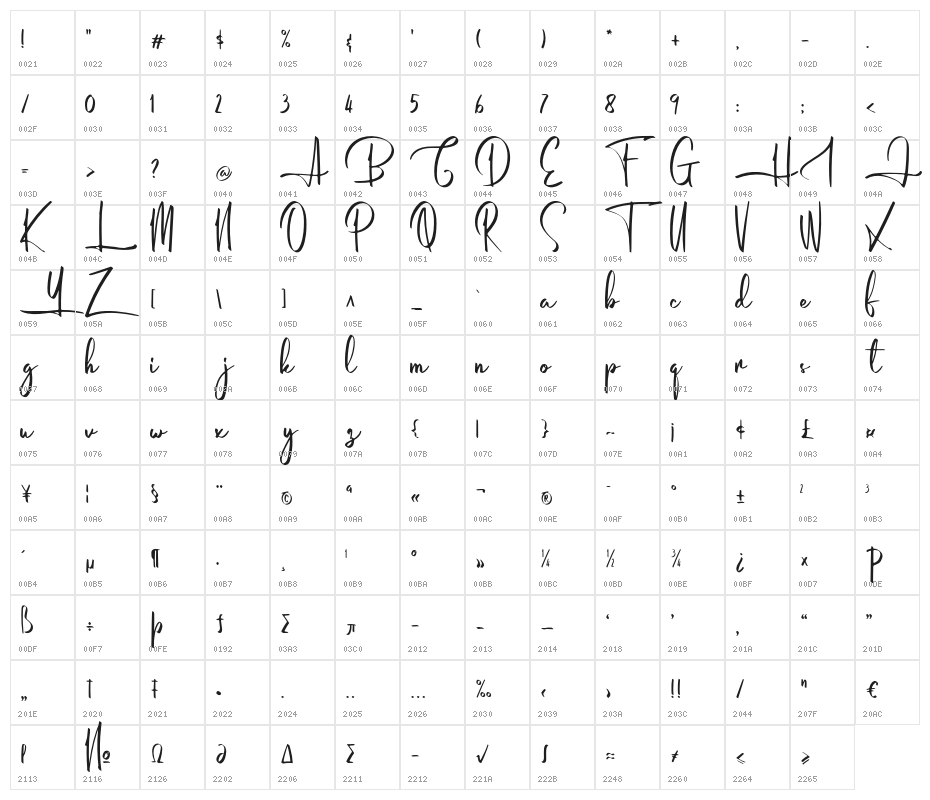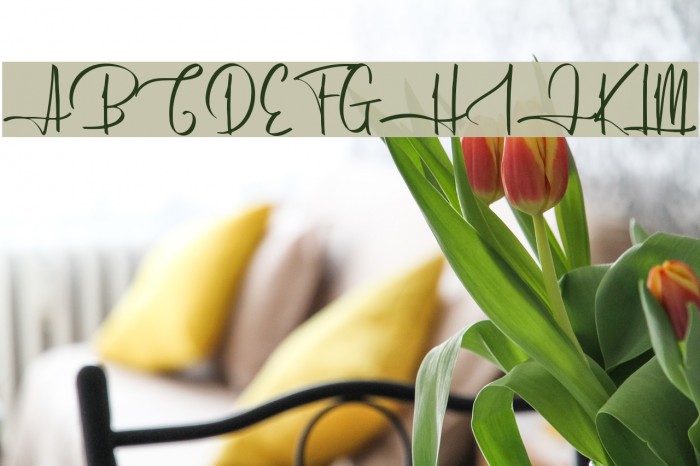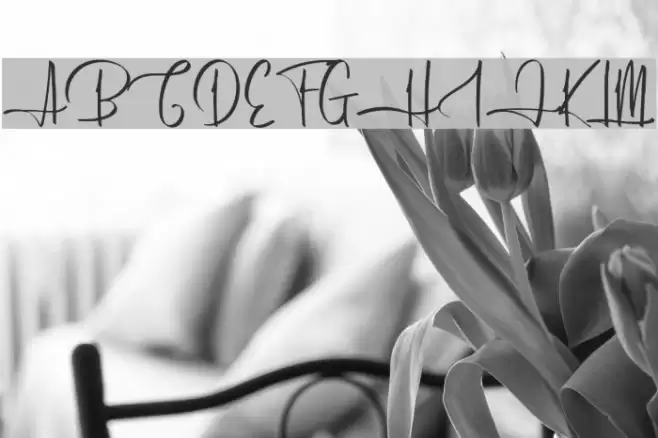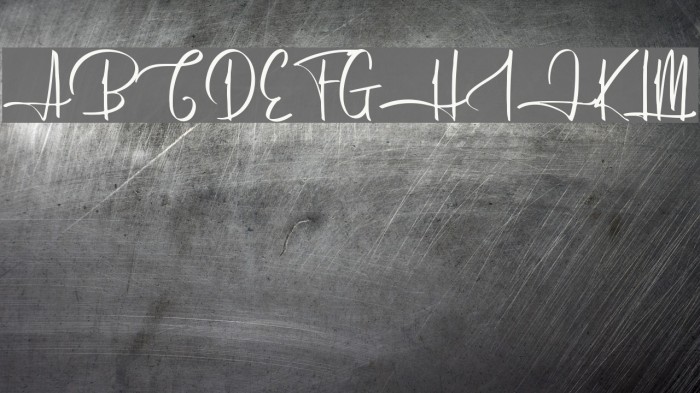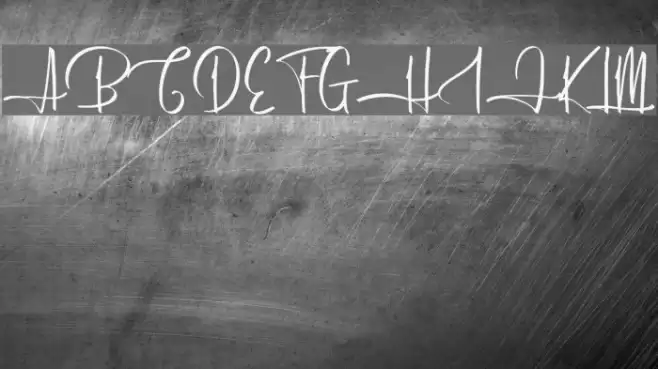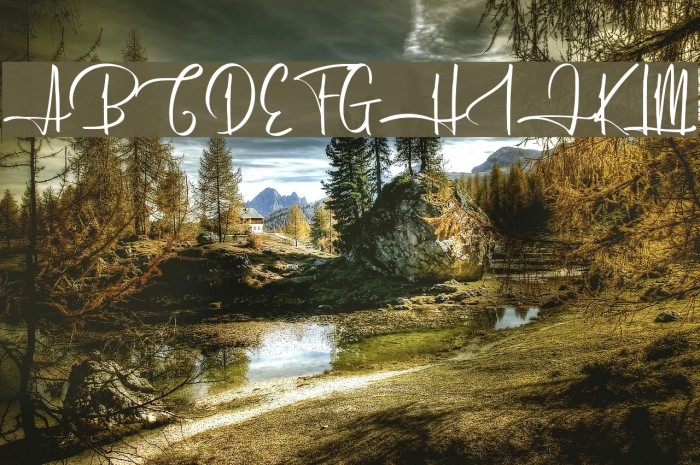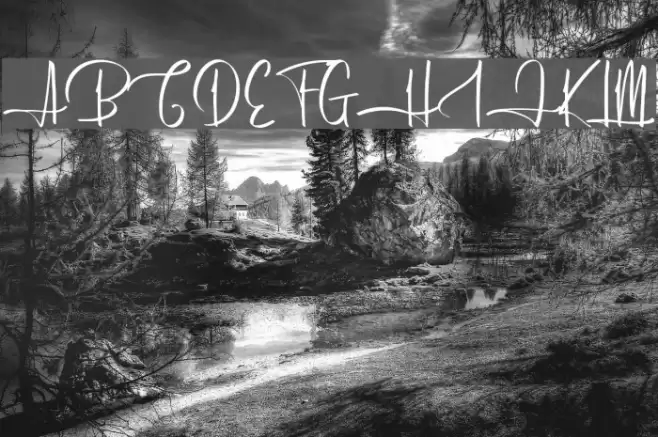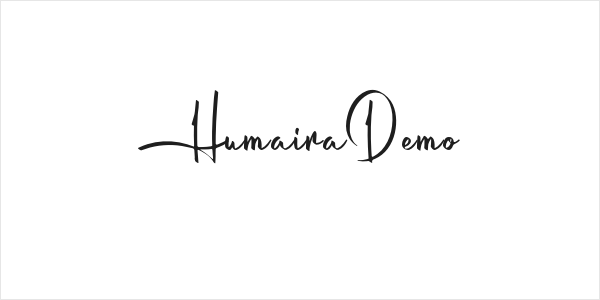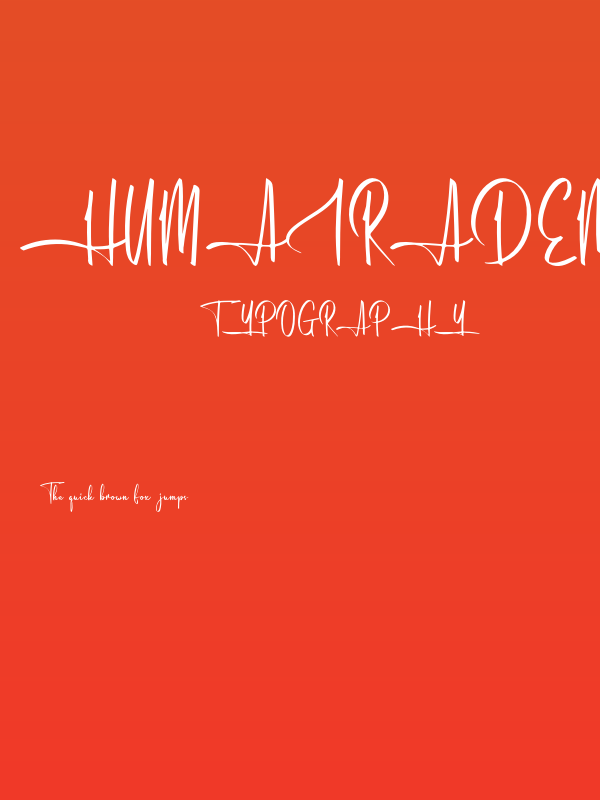
HumairaDemo Font
HumairaDemo Description
This font features a dynamic and expressive handwritten style, characterized by its fluid and flowing letterforms. The uppercase letters are tall and slender, with a slight slant that adds a sense of movement. The lowercase letters are more compact, with a playful and casual appearance. The numbers and special characters maintain the same lively aesthetic, making the font versatile for various creative applications. The strokes vary in thickness, providing a natural and organic feel, while the overall design remains legible and stylish.